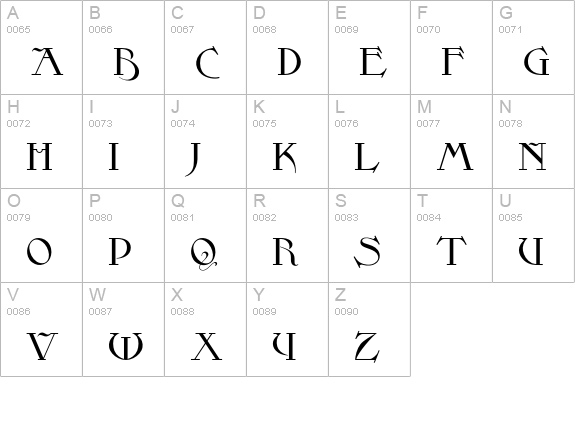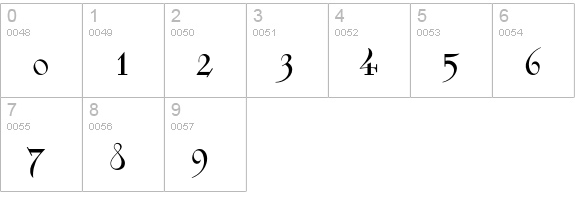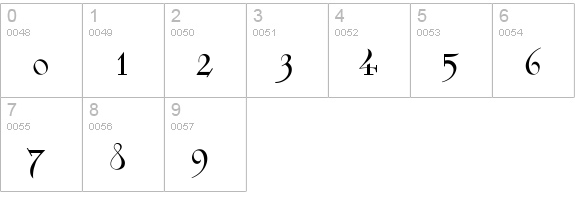
Lillehammer Font Details
Introducing Lillehammer font, a sleek and modern typeface that exudes elegance and sophistication. This versatile font is perfect for a wide range of design projects, from branding to editorial work. With its clean lines and stylish letterforms, Lillehammer font adds a touch of class to any design. What's even better is that Lillehammer font is completely free to download at FontsMarket.com. Yes, you read that right - you can get your hands on this gorgeous font at no cost! So why wait? Download Lillehammer font today and elevate your designs with its timeless appeal.